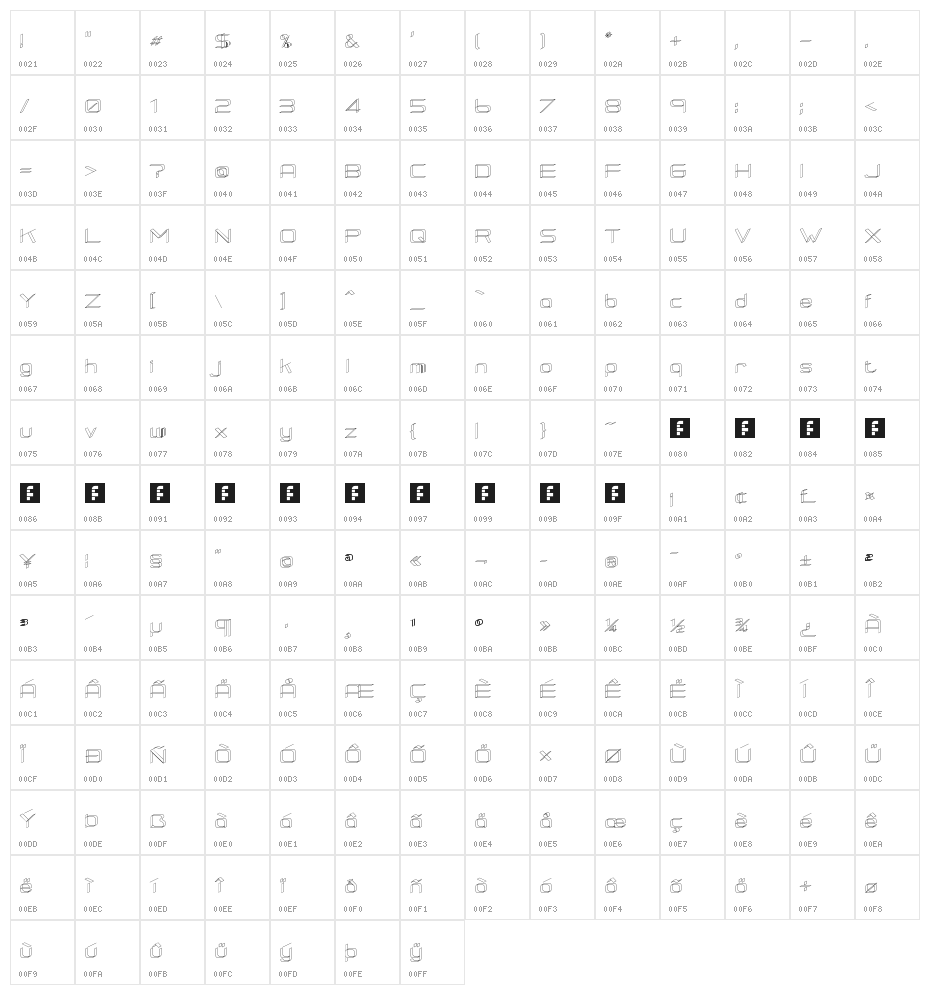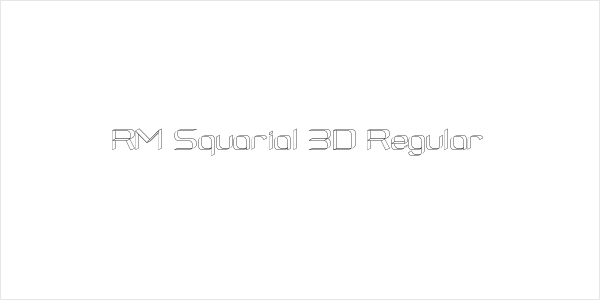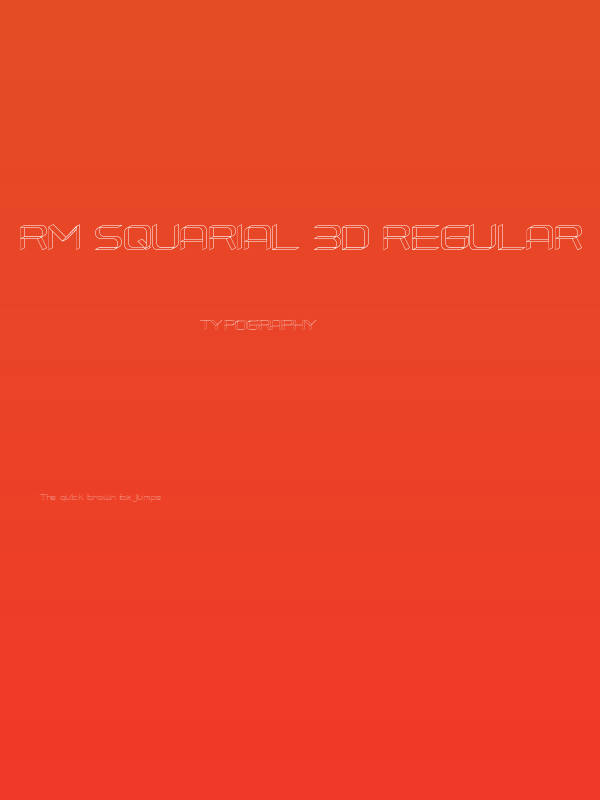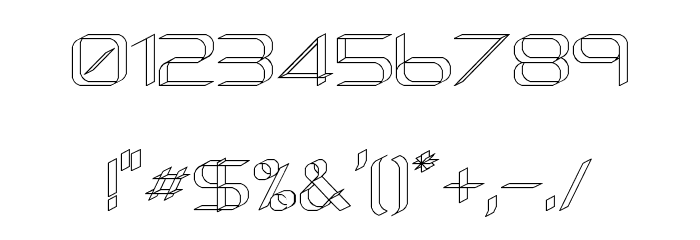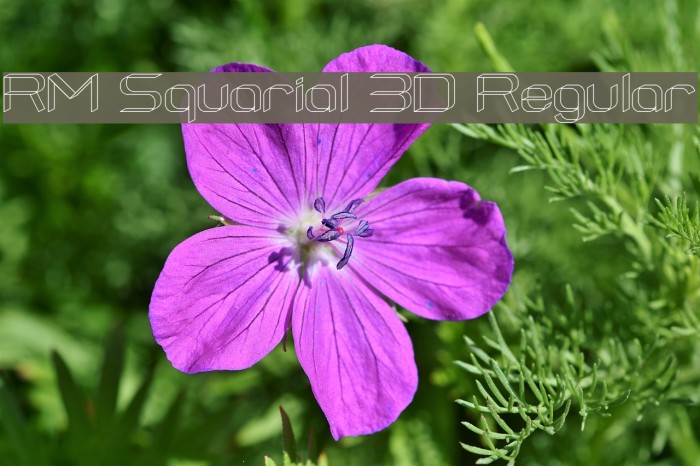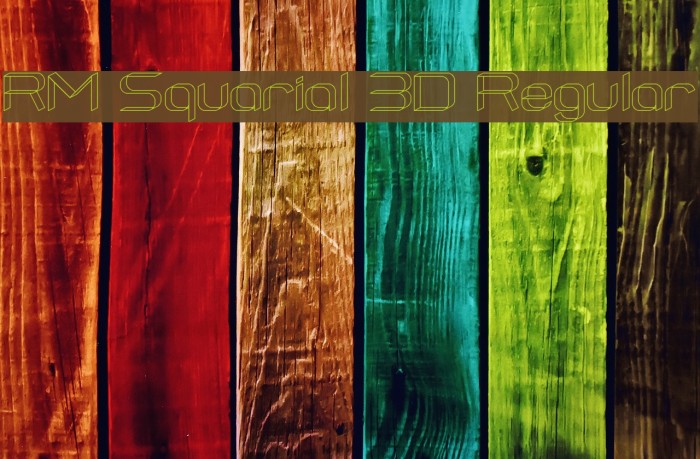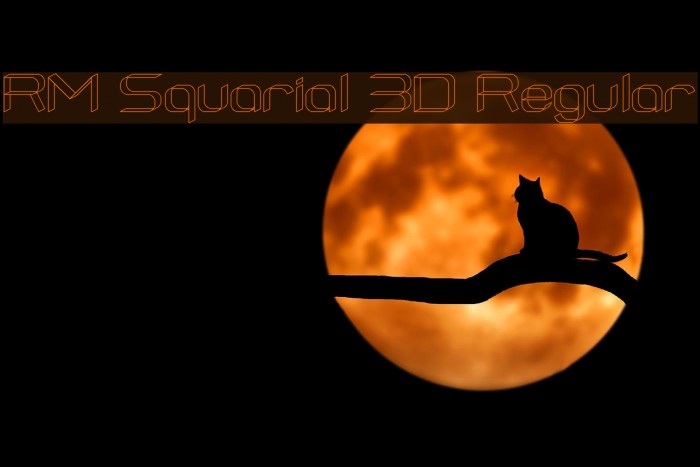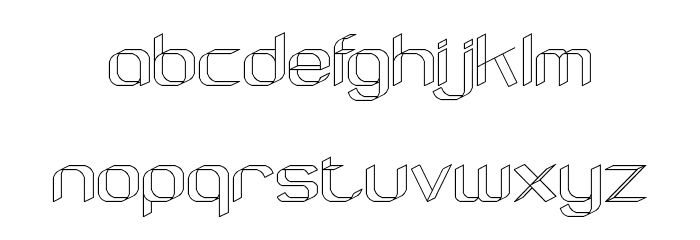
RM Squarial 3D Regular Font
RM Squarial 3D Regular Description
This font features a unique 3D geometric design, characterized by its angular and linear structure. Each character is crafted with a distinct outline that gives a sense of depth and dimension, making it stand out in any design. The uppercase and lowercase letters maintain a consistent style, with sharp edges and clean lines that create a futuristic and modern appearance. The numerals and special characters follow the same design principles, ensuring uniformity across all elements. This font is ideal for projects that require a bold and innovative look, capturing attention with its striking and unconventional style.
| Proposed Projects | Ideal for technology branding, futuristic posters, video game titles, and innovative product packaging. |